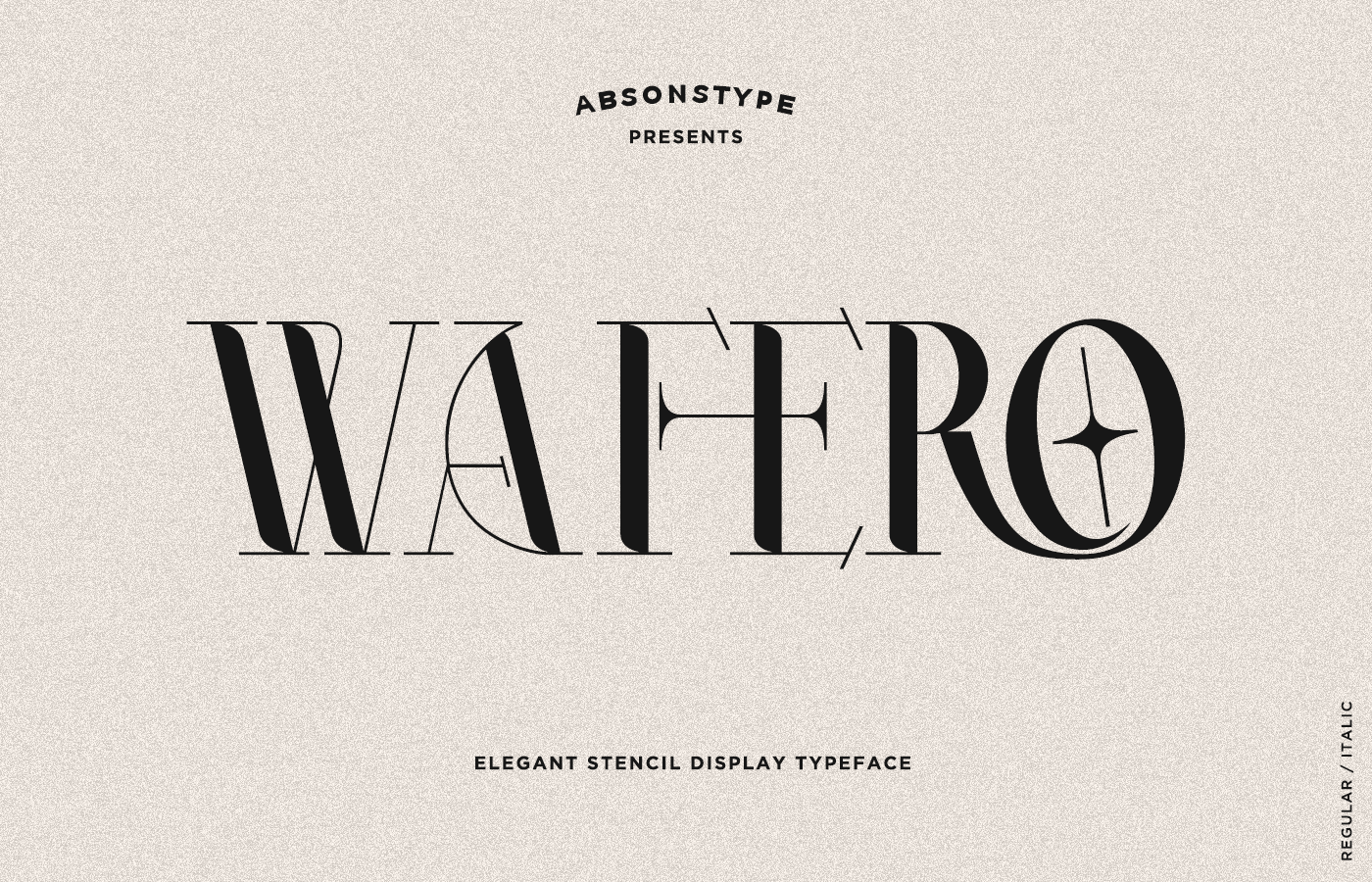
WAFERO
WAFERO is the Stencil display typeface with combine uppercase and lowercase looks and feel nice balanced. Provide with alternates and ligatures font in variant style make the design letter looks nice. Honestly it works perfectly for headlines, logos, posters, packaging, T-shirts and much more.